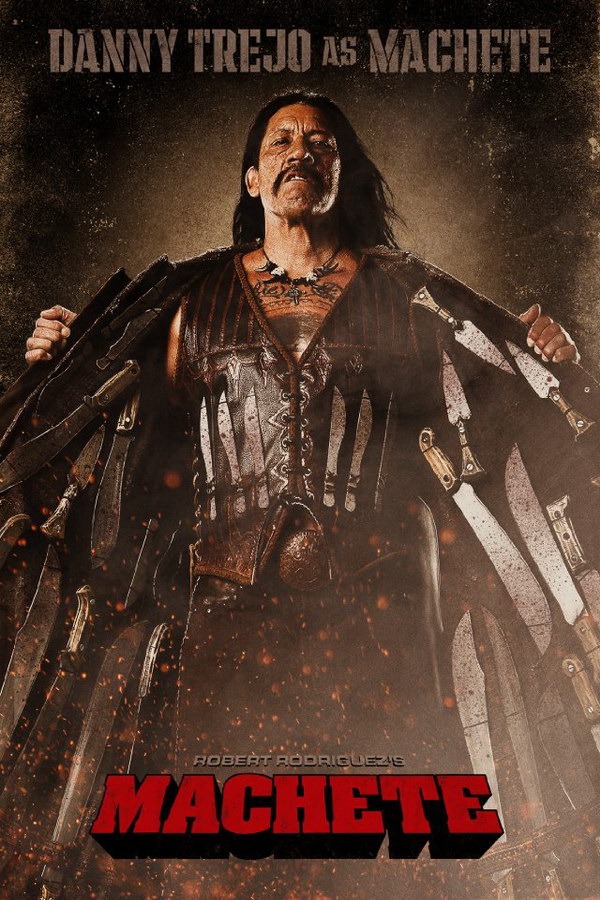
Machete Font
ActionMachete is a 2010 American exploitation action film written and directed by Robert Rodriguez and Ethan Maniquis. The film centers around Machete (Danny Trejo) a former Mexican Federale, who roams Texas streets as a vigilante after nearly being killed by a powerful drug lord. He is double-crossed while performing a covert hit and forced to flee. In his quest for vengeance, Machete carves a path of blood, bullets, and broken hearts.
Aachen Medium was probably used for the poster's film title, which had 3D text effects. In 1969, Colin Brignall, the type director of Letraset, designed Aachen to fulfill a need for a contemporary, heavy Egyptian font. You can view more details about it here.